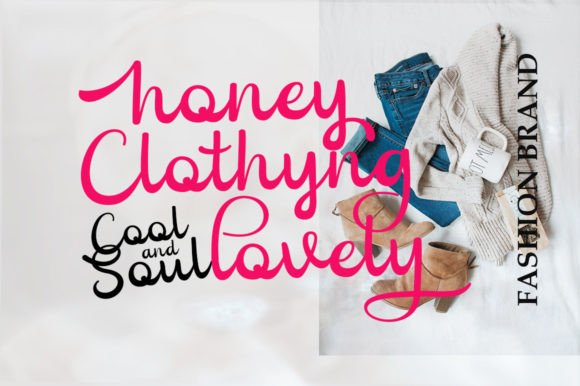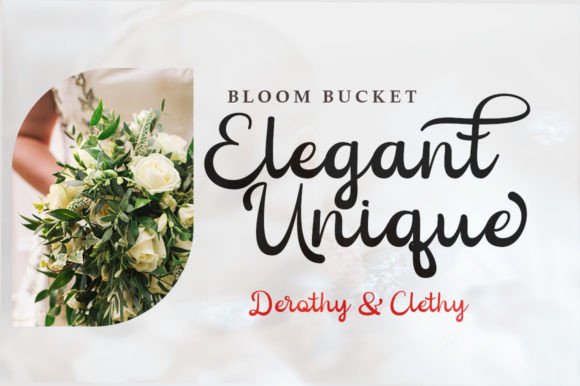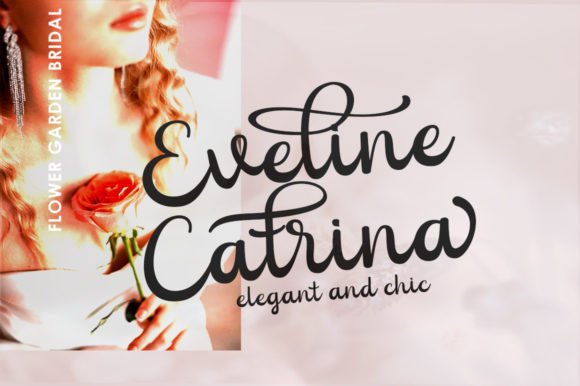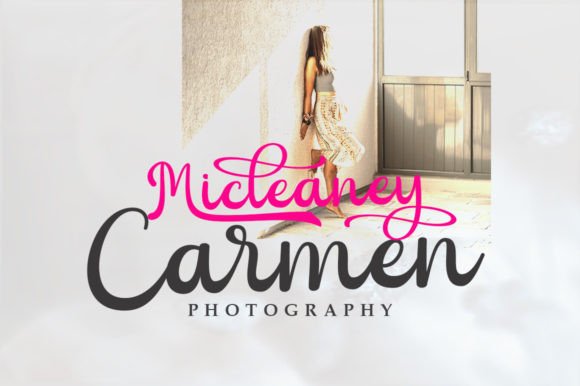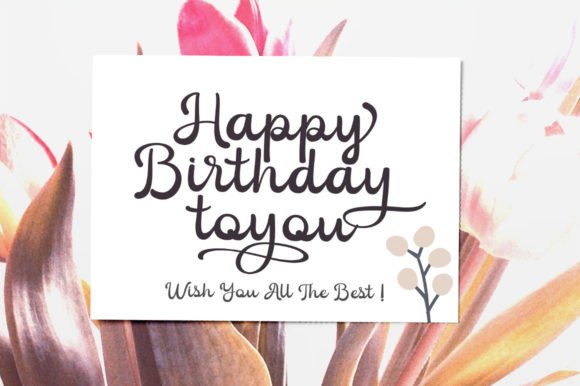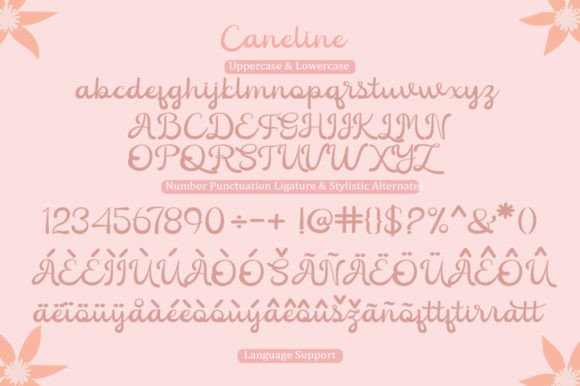
Caneline Font: The Elegant and Charming Choice for Designers and Crafters
Are you looking for a font that exudes elegance and charm? Look no further than Caneline Font! This beautiful handwritten font is perfect for adding a touch of sophistication to your designs, whether you’re working on wedding invitations, thank you cards, quotes, greeting cards, logos, business cards, or any other project that requires a personal and elegant feel.
What is Caneline Font?
Caneline Font is a modern script font that features beautiful, flowing lines and a delicate touch. Its elegant and charming design makes it perfect for a wide range of applications, from formal events to everyday designs. The font is highly legible and comes in a range of styles, making it versatile and easy to use.
Characteristics of Caneline Font
Caneline Font has several characteristics that make it stand out from other fonts. Some of its key features include:
- Elegant and charming design: Caneline Font has a beautiful, flowing design that adds a touch of elegance and sophistication to any project.
- Handwritten feel: The font has a handwritten feel that makes it perfect for designs that require a personal touch.
- Highly legible: Caneline Font is highly legible, making it easy to read and understand.
- Versatile: The font comes in a range of styles, making it versatile and easy to use for a wide range of applications.
Uses of Caneline Font
Caneline Font is perfect for a wide range of applications, including:
- Wedding invitations: The font’s elegant and charming design makes it perfect for wedding invitations, adding a touch of sophistication and romance to your wedding stationery.
- Thank you cards: Caneline Font is also great for thank you cards, allowing you to express your gratitude in a beautiful and elegant way.
- Quotes: The font’s flowing design makes it perfect for quotes, adding a touch of elegance and sophistication to your inspirational and motivational quotes.
- Greeting cards: Caneline Font is also great for greeting cards, allowing you to add a personal and elegant touch to your cards.
- Logos: The font’s unique and elegant design makes it perfect for logos, allowing you to create a beautiful and memorable brand identity.
- Business cards: Caneline Font is also great for business cards, adding a touch of elegance and sophistication to your professional stationery.
Why Choose Caneline Font?
There are many reasons why you should choose Caneline Font for your next design project. Some of the benefits of using this font include:
- Elegance and charm: Caneline Font adds a touch of elegance and charm to any project, making it perfect for designs that require a sophisticated and refined feel.
- Versatility: The font’s versatility makes it easy to use for a wide range of applications, from formal events to everyday designs.
- Easy to read: Caneline Font is highly legible, making it easy to read and understand.
- Unique design: The font’s unique design makes it stand out from other fonts, allowing you to create beautiful and memorable designs.
Tips for Using Caneline Font
Here are some tips for using Caneline Font effectively:
- Use it for headings and titles: Caneline Font is perfect for headings and titles, adding a touch of elegance and sophistication to your designs.
- Pair it with other fonts: The font pairs well with other fonts, allowing you to create beautiful and harmonious designs.
- Use it for formal events: Caneline Font is perfect for formal events, such as weddings and galas, where a touch of elegance and sophistication is required.
- Experiment with different styles: The font comes in a range of styles, so don’t be afraid to experiment and find the one that works best for your design.
Caneline Font is a beautiful and elegant font that is perfect for designers and crafters who want to add a touch of sophistication to their designs. Its elegant and charming design, versatility, and ease of use make it a great choice for a wide range of applications. Whether you’re working on wedding invitations, thank you cards, quotes, greeting cards, logos, business cards, or any other design that requires a handwritten touch, Caneline Font is the perfect choice.